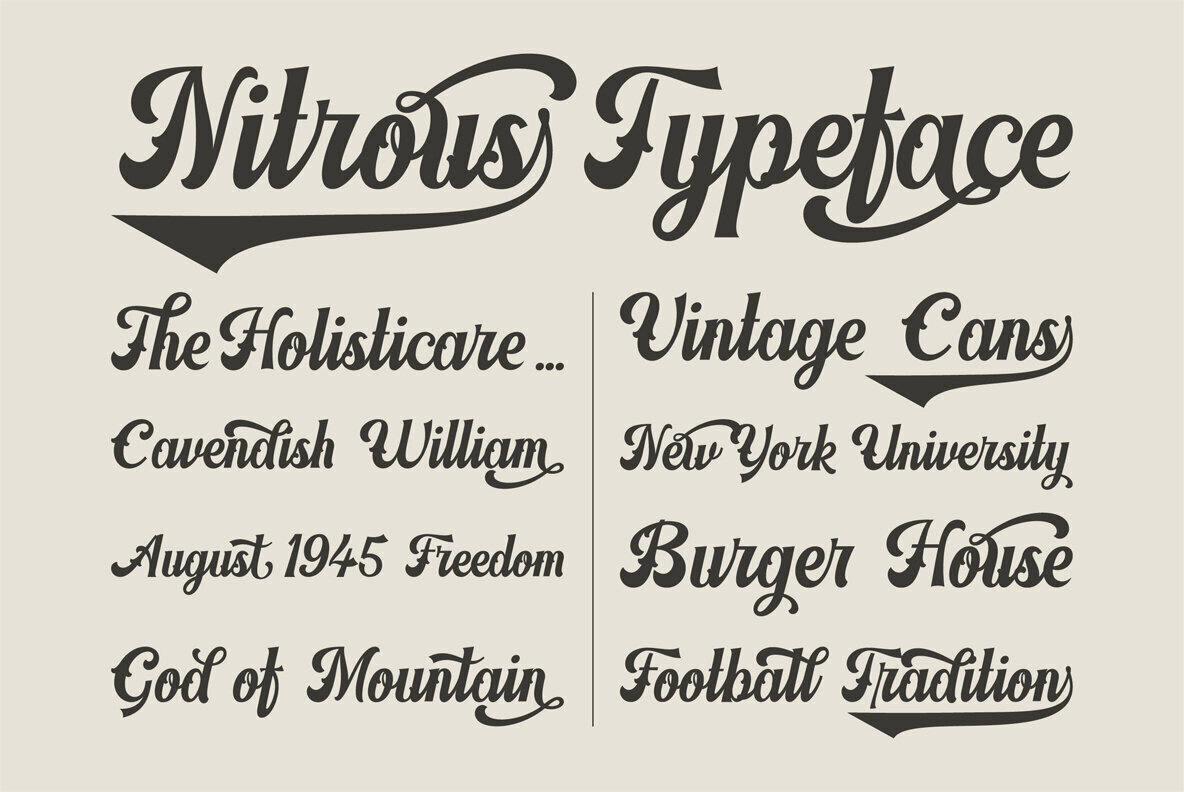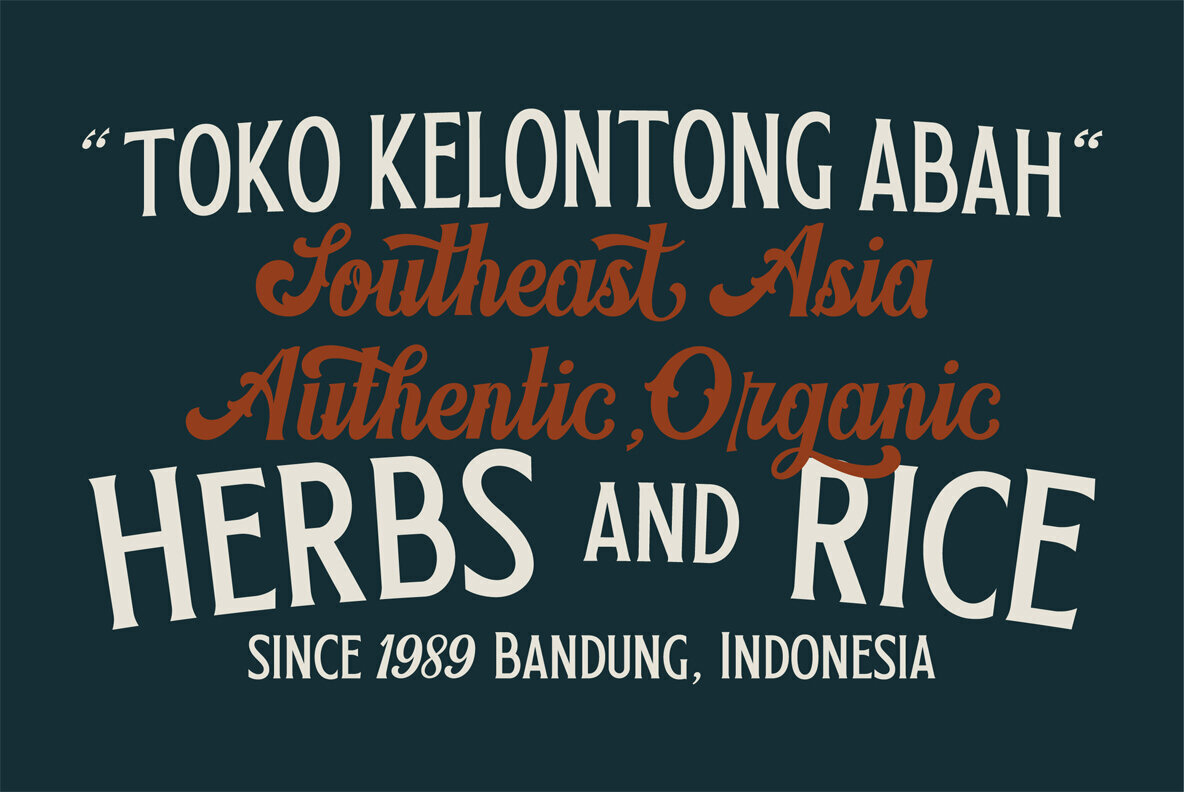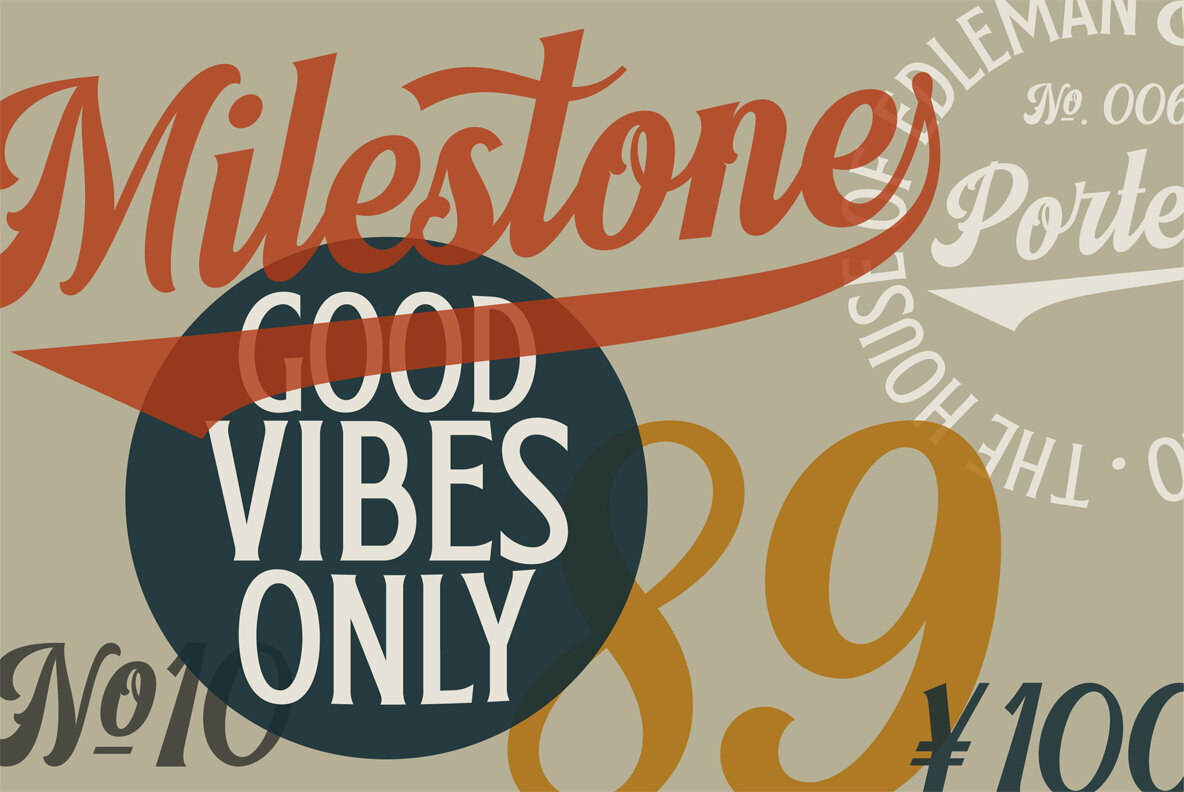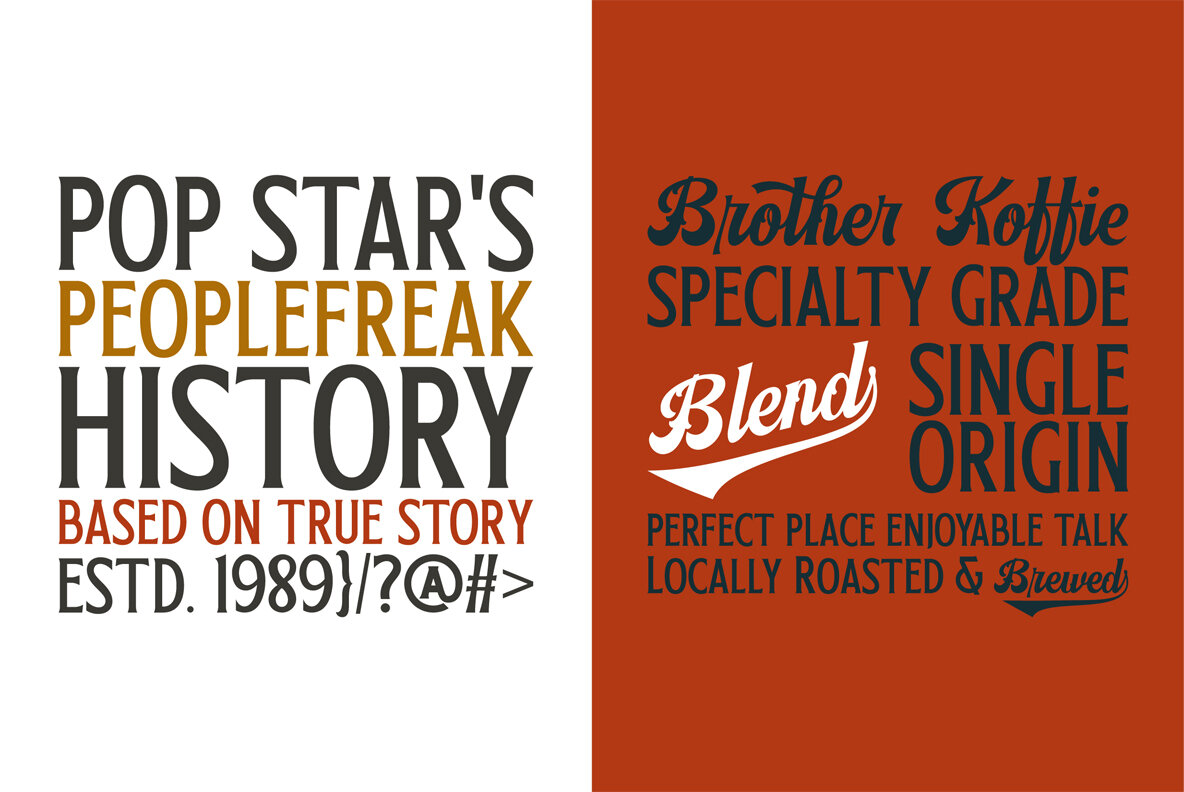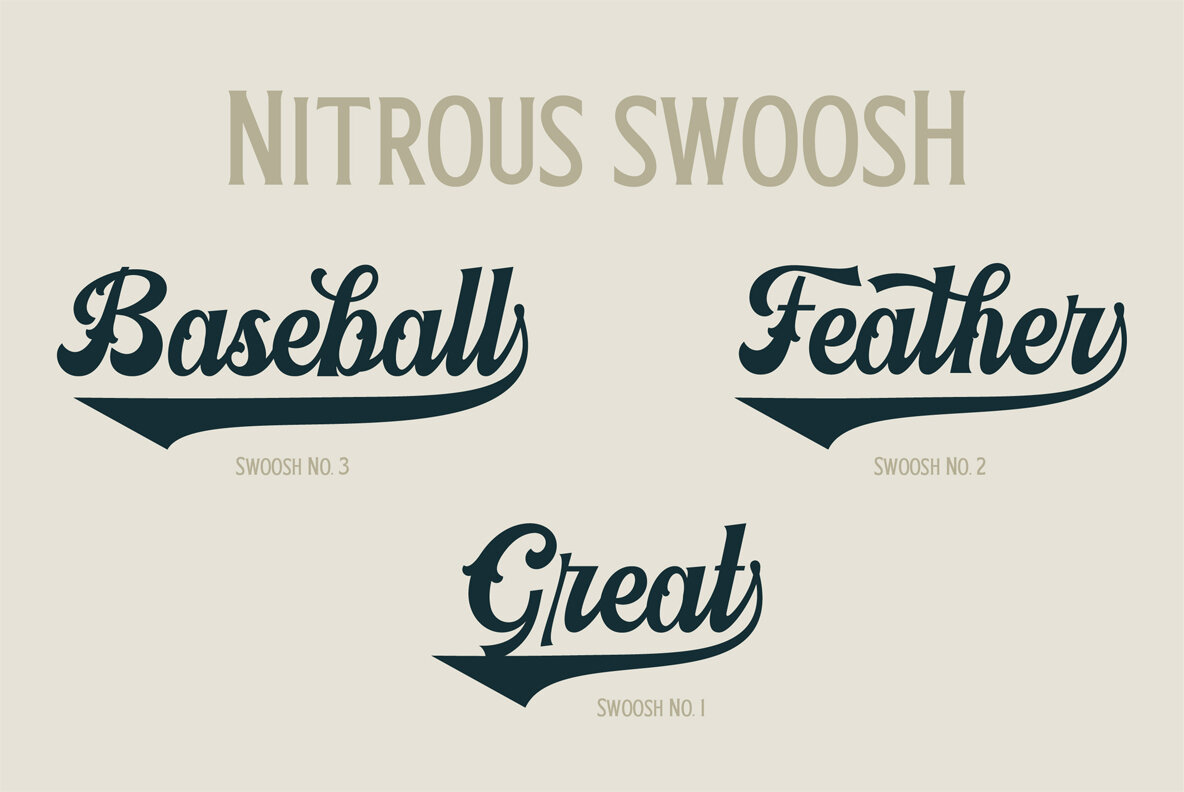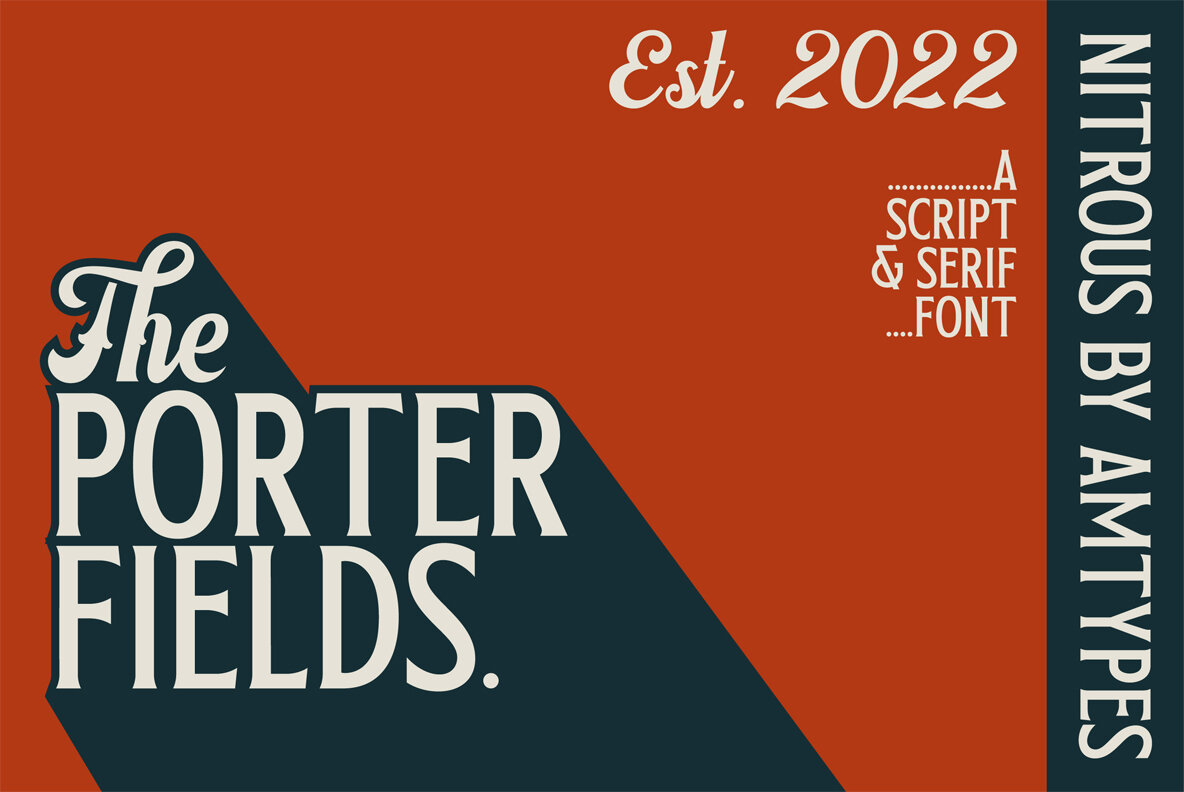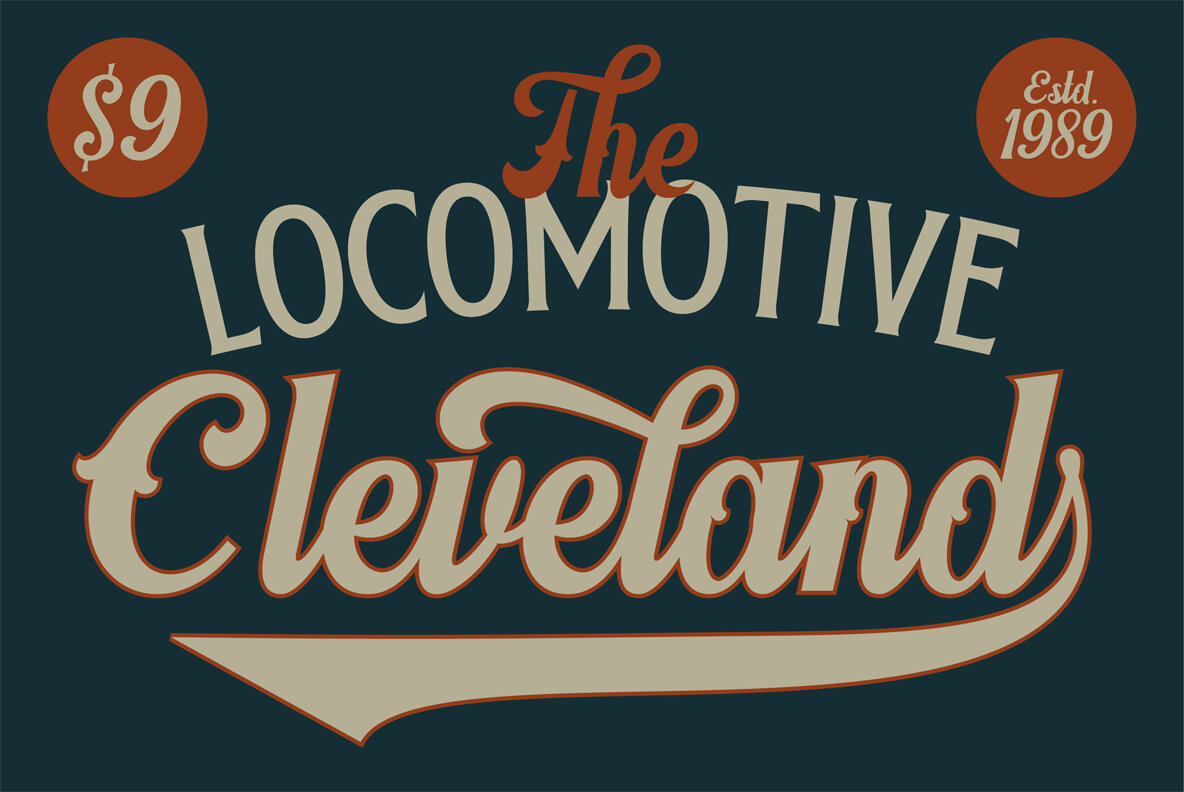
Nitrous Font
Nitrous Regular
Nitrous Script
Nitrous offers a charming blend of script and serif elements, evoking both elegance and a vintage aesthetic. This versatile typeface features alternate characters, swashes, and ligatures, lending it exceptional adaptability for creating visually captivating typographic designs. Nitrous is particularly effective for product packaging that embodies a handcrafted, artisan look. It suits brands aiming to project a tone of familiarity, reliability, and timelessness. Ideal for strong branding and identity projects, Nitrous also excels in logo design, seamlessly capturing and conveying brand essence.Nitrous: A Stylish Script and Serif Typeface